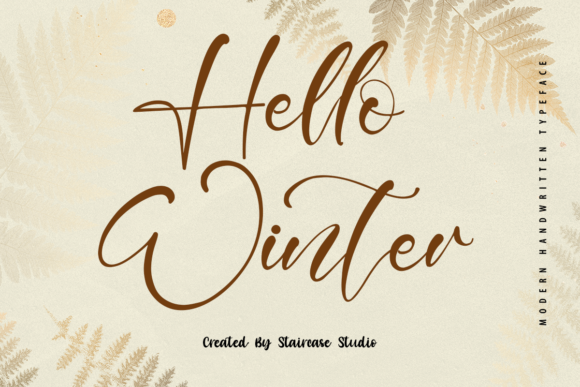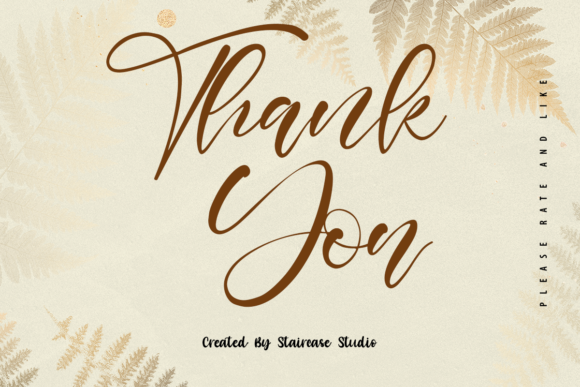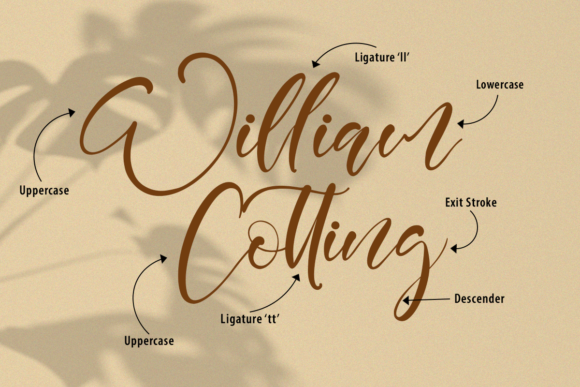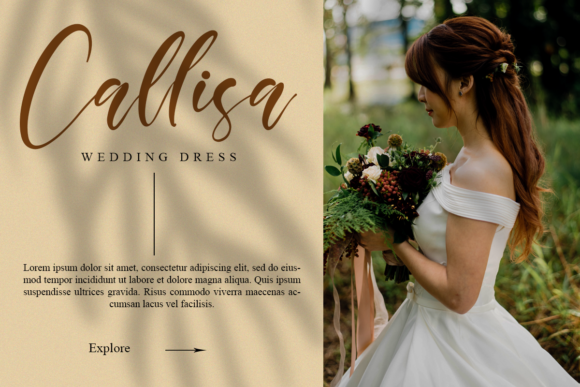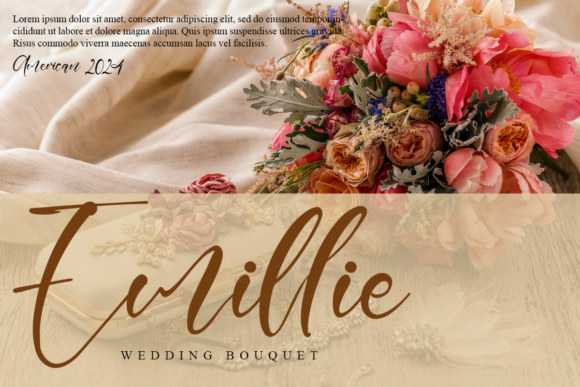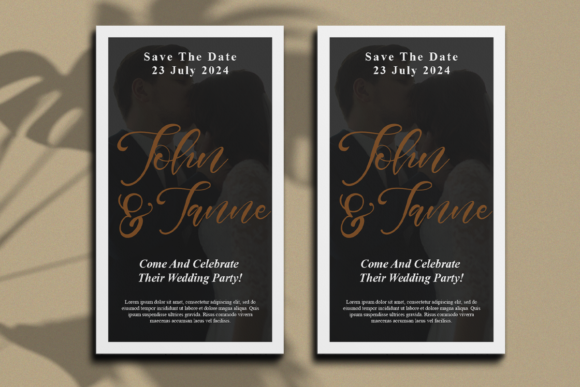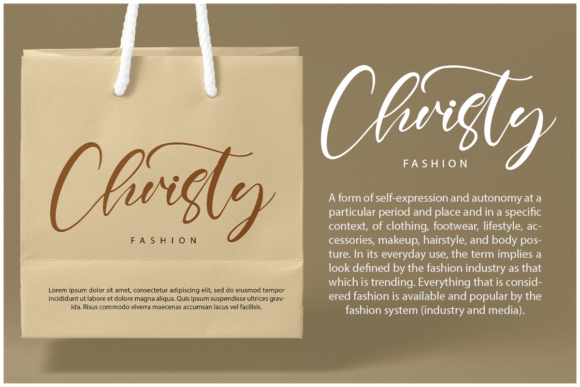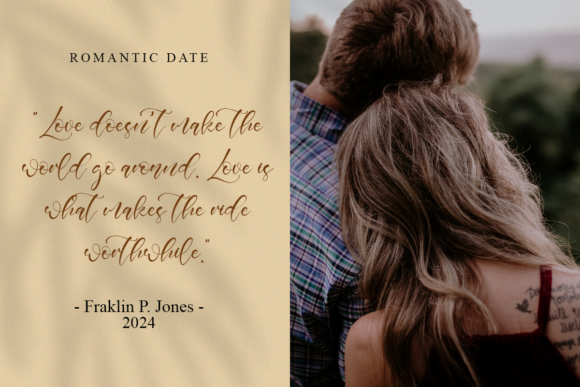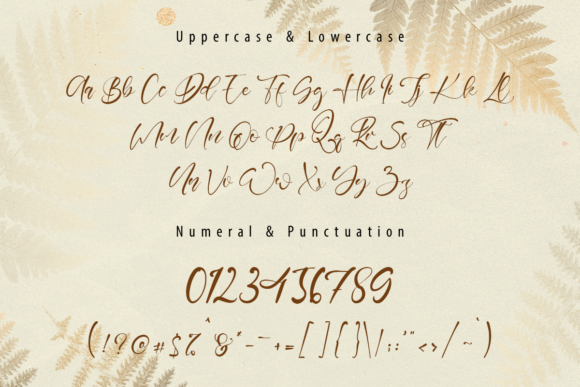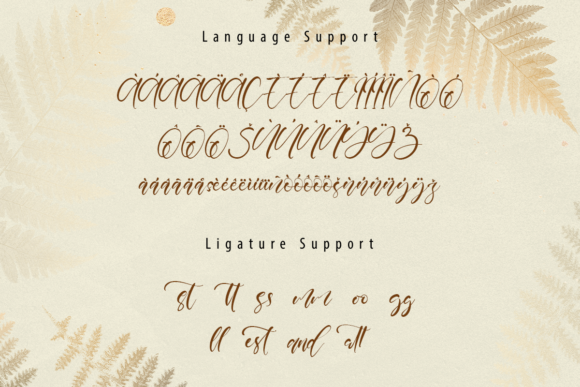
About Hello Winter Font
Hello Winter is a chic and flowing script font. Not too thin and not too thick, balanced and varied, this font was designed to enhance the beauty of your projects.